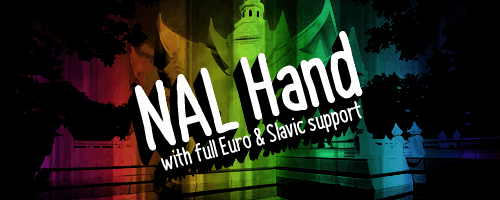
Free NAL Hand Font
Download and enjoy this free nal hand font. Cool typeface to showcase your designs in a modern way. This is a downloadable free font file brought to you by Font Space. Amaze your fellow designers and create stunning designs with this beautiful font.